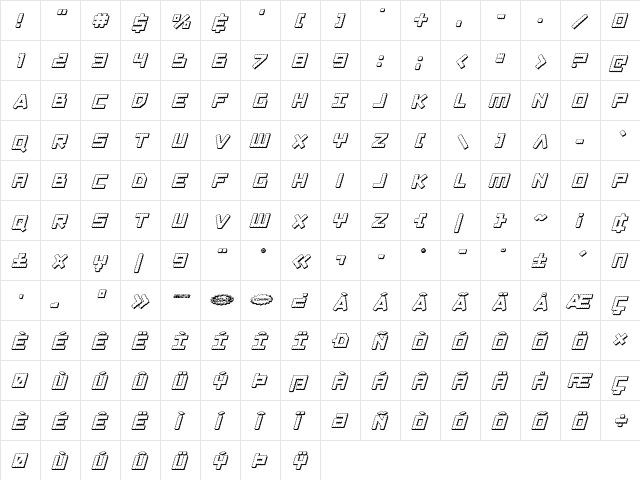
Obsidian Blade 3D Italic Italic
Design Context for Obsidian Blade 3D Italic Typeface
Obsidian Blade 3D Italic is a composed and adaptable typeface that performs quietly and consistently across a wide range of design contexts. The dynamic lean of this cut emphasises speed and emphasis in any layout.
Pro Tip: Use Obsidian Blade 3D Italic for emphasis, pull quotes, and subheadings where its slanted energy can add rhythm to the layout.